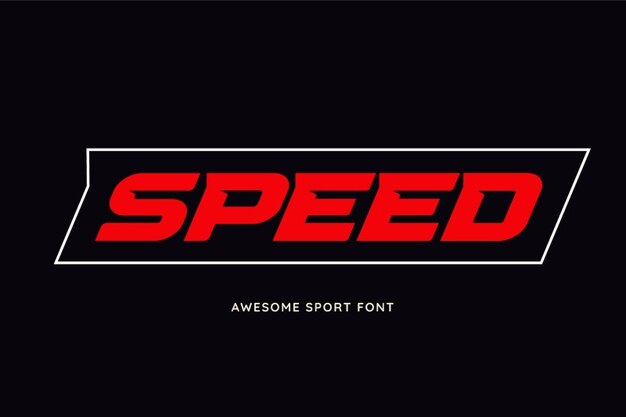
Speed
Speed Font
Make your project advance as quick as lightning with this Speed font from Freepik. It's a slab serif, sharp-edged, slightly tilted, bold, imposing typeface that suits perfectly headlines for sport events, car race posters, logos and banners. It also includes question and exclamation marks, as well as other punctuation signs. Download and install it at the speed of light with Freepik!